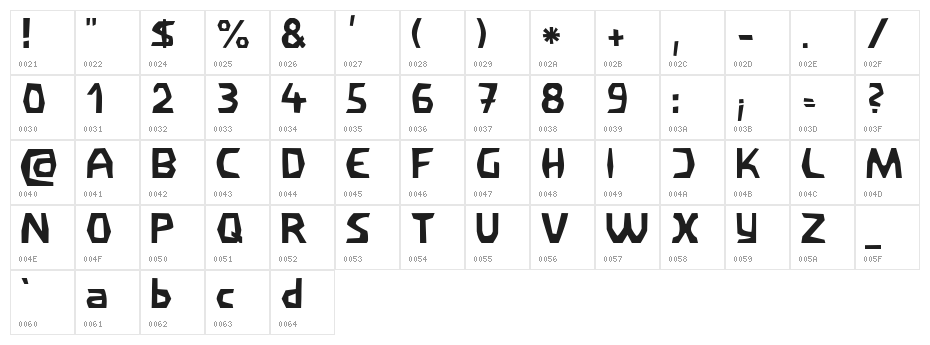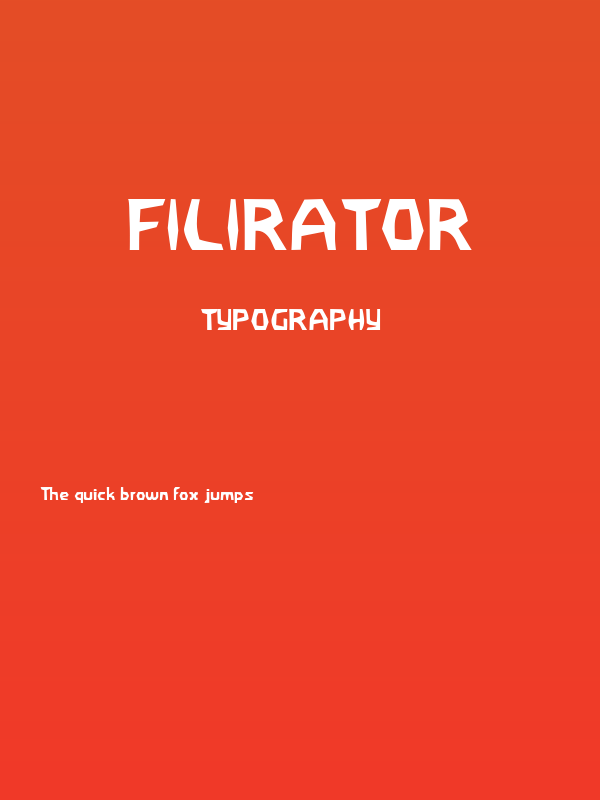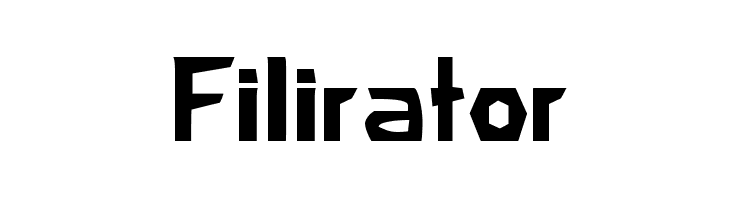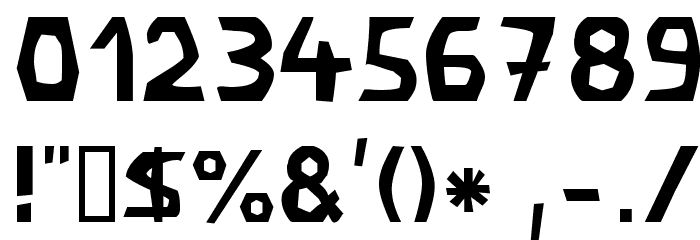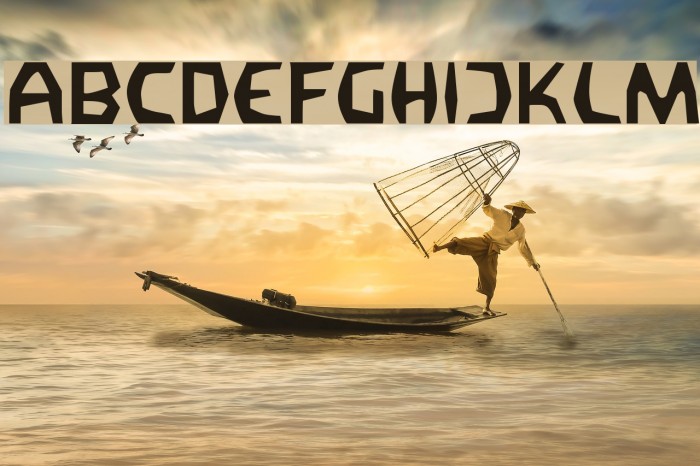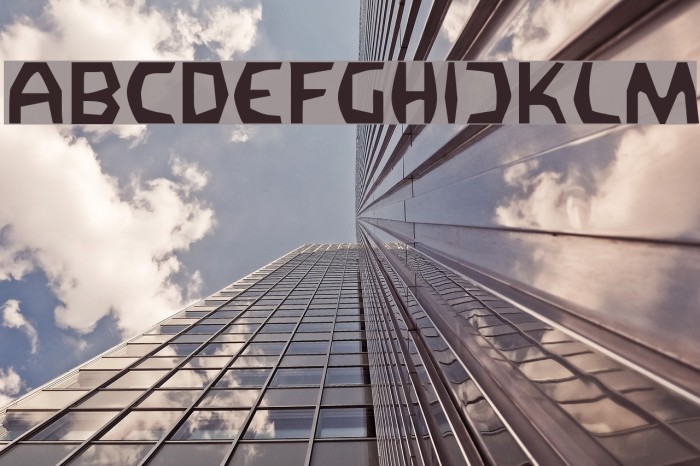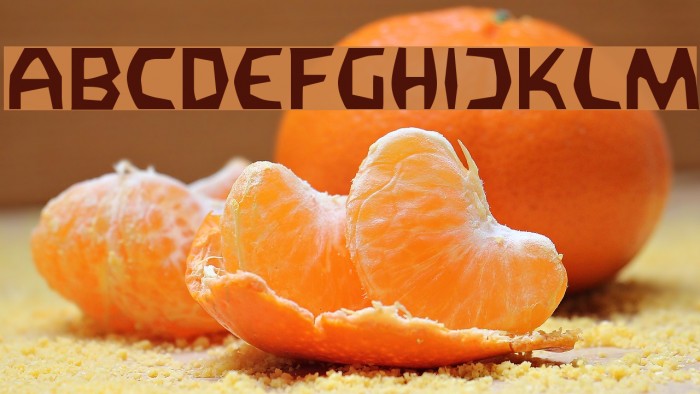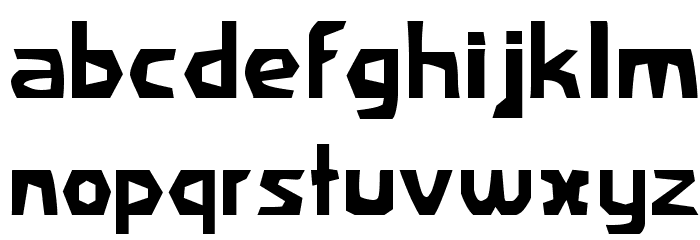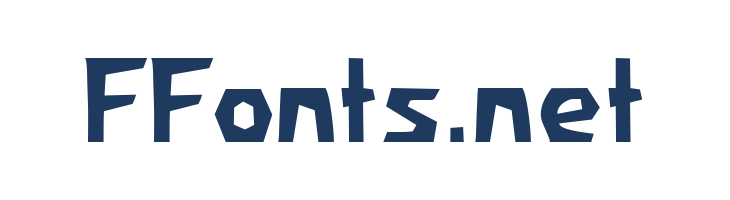
Filirator Font
Filirator Description
This font features a bold, angular design with a distinct geometric style. The characters are crafted with sharp edges and a blocky appearance, giving it a modern and edgy look. The uppercase and lowercase letters maintain a consistent style, with the uppercase being slightly more pronounced. Numbers and special characters follow the same design principles, ensuring uniformity across all glyphs. The font's unique structure makes it stand out, ideal for projects that require a strong visual impact.
| Proposed Projects | Ideal for branding, posters, video game graphics, and any project needing a strong, modern aesthetic. |